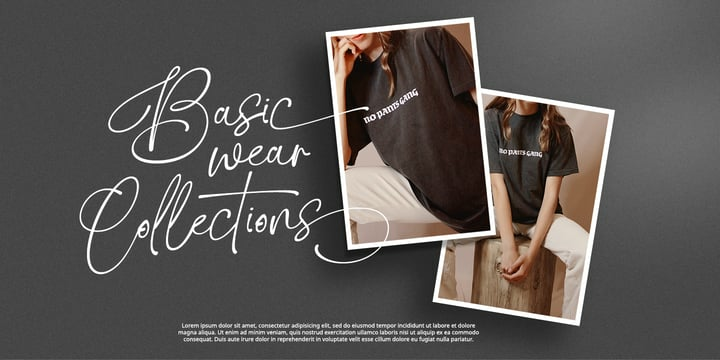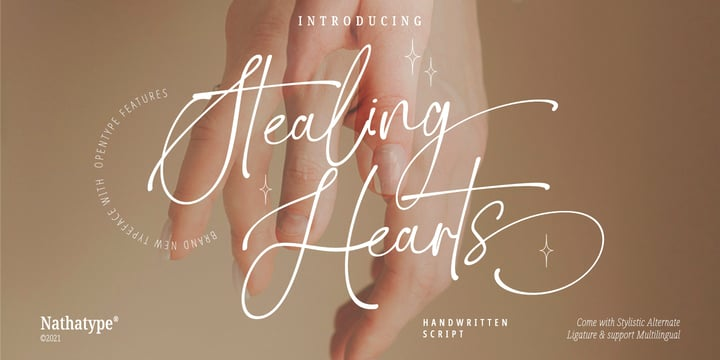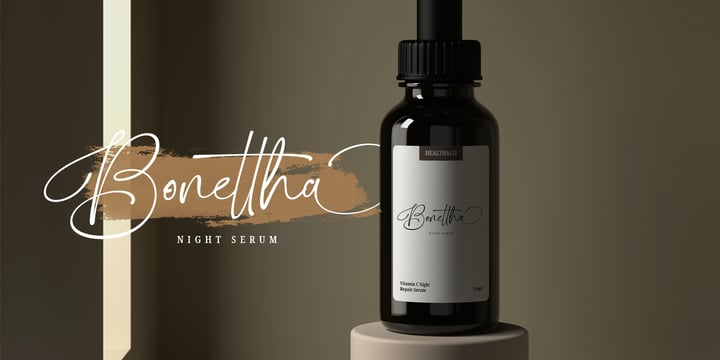
Stealing Hearts Font
Stealing Hearts FontStealing Hearts is a elegant script typeface. Designed primarily as a captivating handcrafted with style. Every swash, stroke, and curve was created to entice happiness and elegance. Ideal to create amazing headings, invitations, logos, and social media graphics.